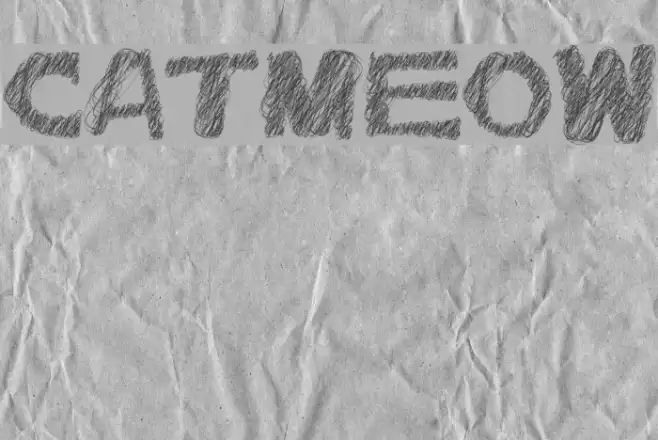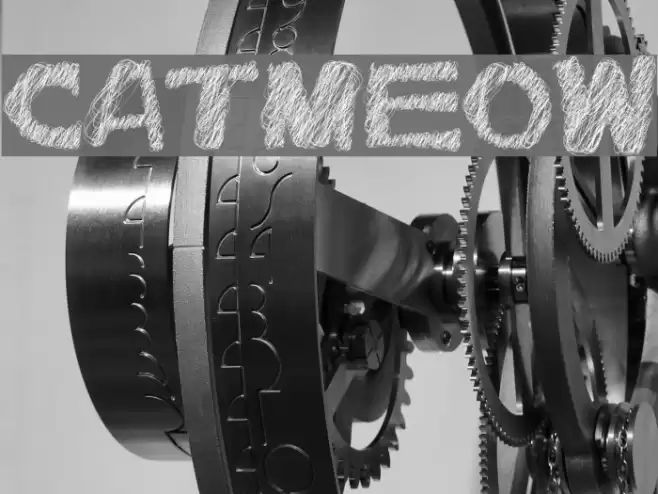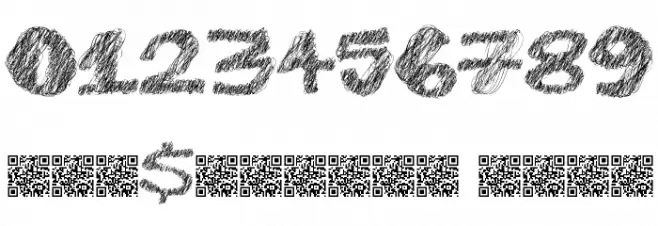
CatMeow Font
CatMeow Description
This font features a playful and textured design, reminiscent of hand-drawn sketches. Each character is filled with a scribble-like pattern, giving it a unique, artistic flair. The uppercase and lowercase letters maintain a consistent style, with rounded edges and a slightly irregular form that adds to the casual, informal appearance. The numbers and special characters follow the same aesthetic, ensuring a cohesive look across all elements. This font's distinct style makes it stand out, ideal for projects that require a touch of creativity and individuality.
A playful, hand-drawn sketch-style font with a textured appearance from Uncategorized fonts.
- Proposed Projects: Ideal for children's book covers, creative posters, art-themed branding, and playful social media graphics.
- Overall Style: Artistic, Playful
- Use Case: Headlines, Logos, Creative Projects